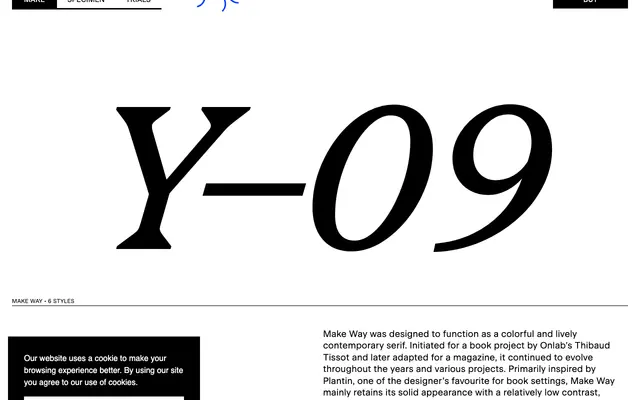
Make Way
A contemporary text serif rooted in Plantin, with triangular serifs, arched strokes and terminal drops that give the family a distinct texture at reading sizes.
Designed by Thibaud Tissot and initially developed for a book project at Onlab, Make Way takes Plantin as its starting point while introducing transitional rather than purely Renaissance characteristics. Triangular serifs combine with arched strokes and terminal drops, and OpenType stylistic sets include a schoolbook variant where the a, g and y switch forms, alongside more formal alternates for Q and R. Currently five weights with a single italic, the family sits within a broader Make family still in development.
The foundry describes Make Way as a contemporary serif primarily inspired by Plantin, with a low contrast and solid appearance alongside transitional properties and triangular serifs — placing it clearly in the transitional serif category rather than purely Renaissance or old-style.